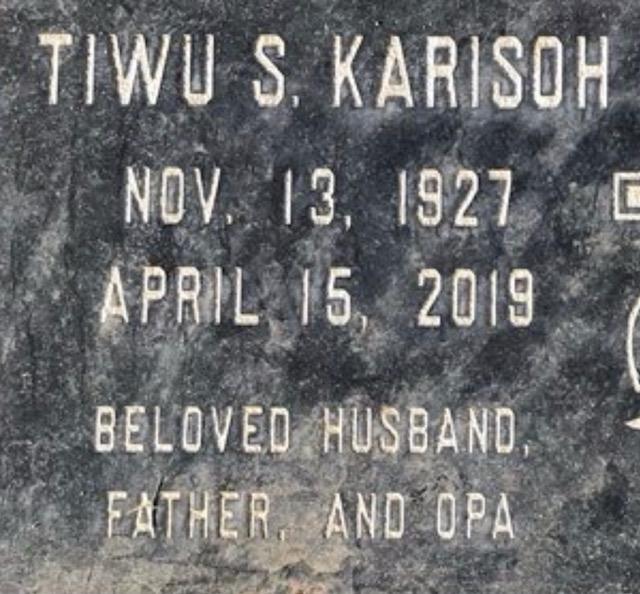
I am here seeking help locating this particular BLOCK font. This font is everywhere at a cemetery and I cannot pin it down.
Note the pointed “M” where they meet…. and the low cross bar on the letter “A”. I know the font has been slightly condensed in one of these photos, but I believe it is the same font.
Where can I locate this font??? I’m going crazy trying to find it!!! I’ve purchased the BLOCK font you offer…however, it is a different variation. It seems like Design Mart has this font(Monument Block)…but I cannot reach anyone about purchasing it?
Is there something similar you can recommend? What keywords can I use to find different block fonts? Anything will help at this point. =/